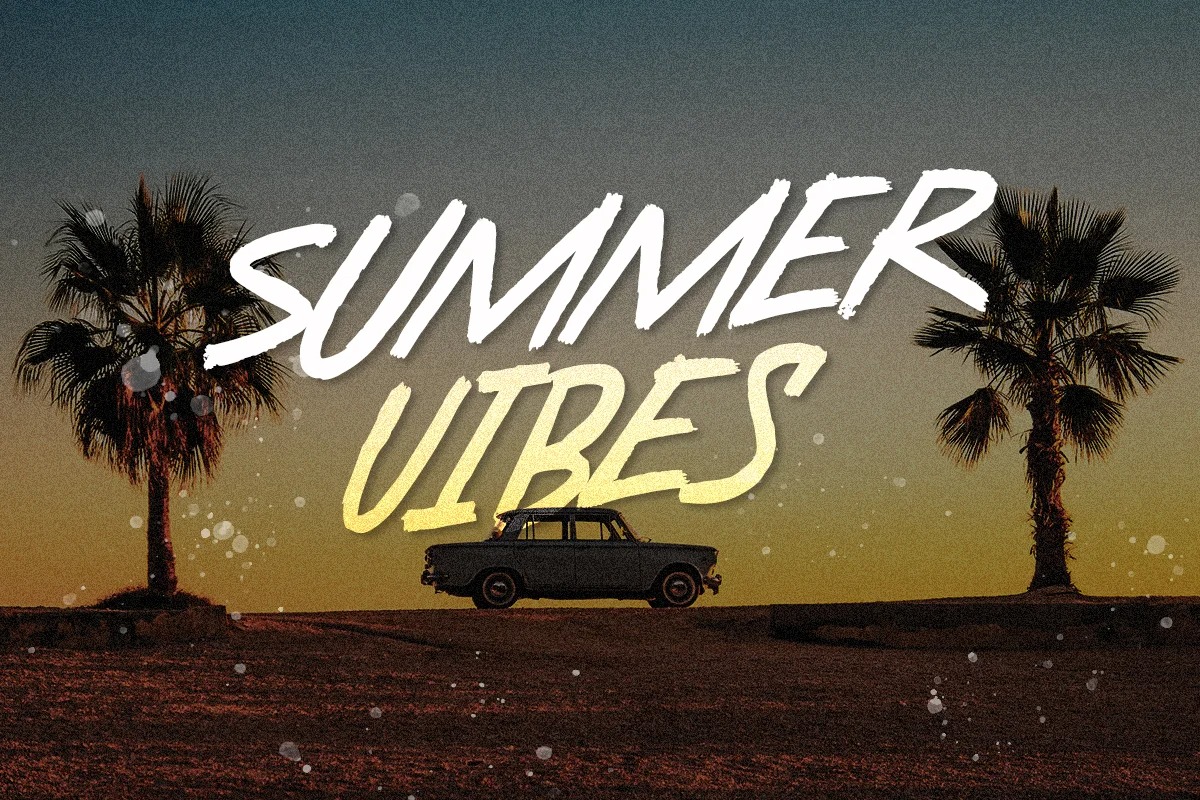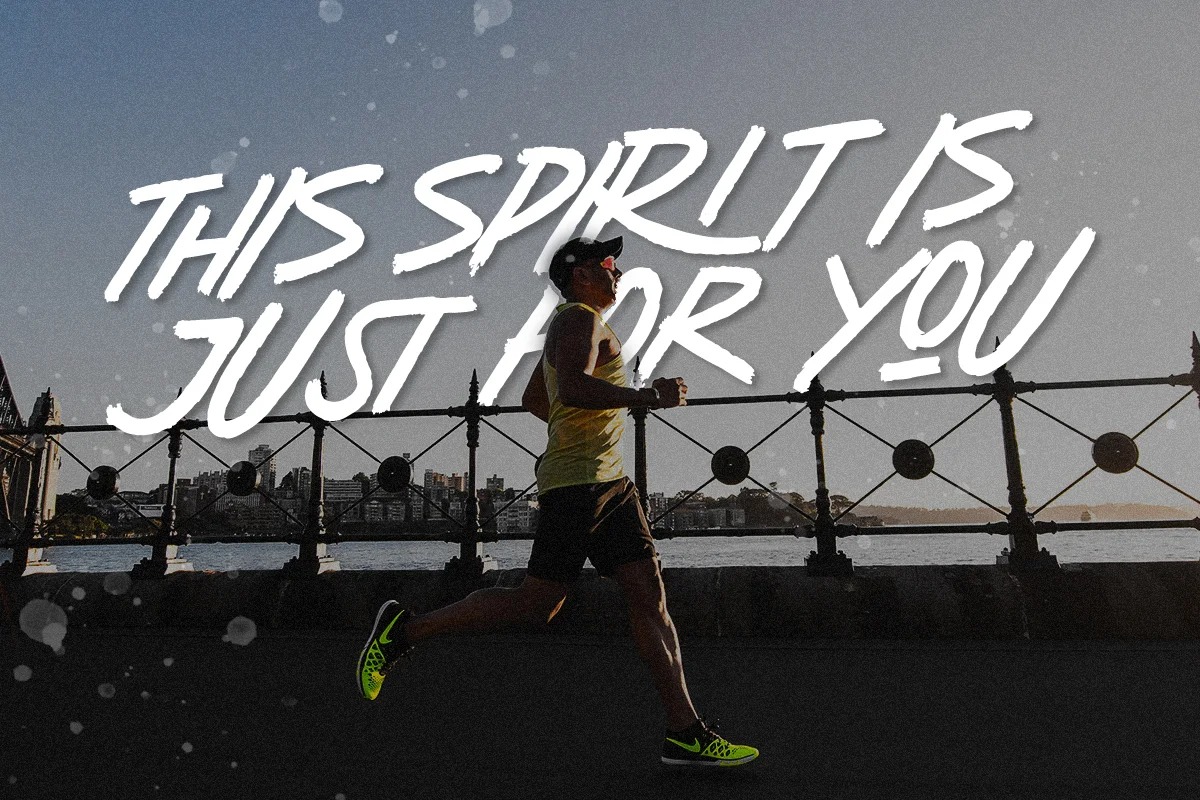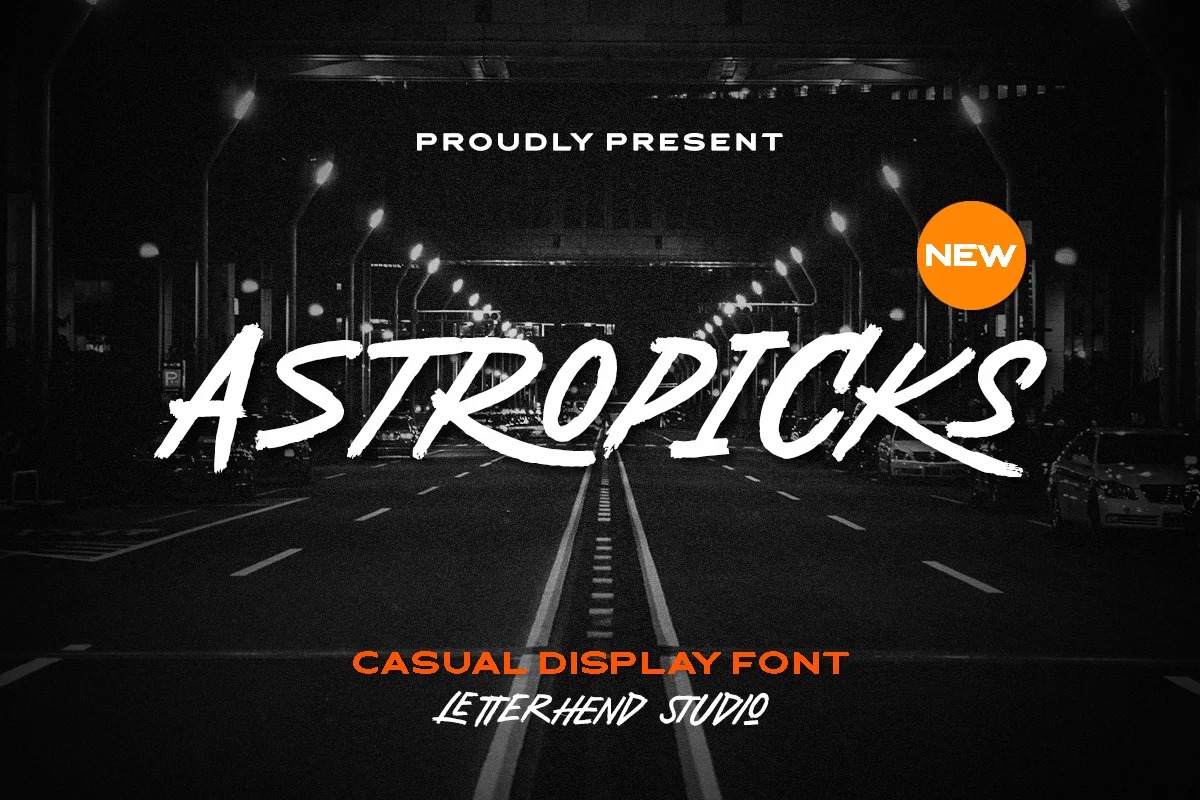
Astropicks Font
Astropicks Display Font
This is a elegant and beautiful brush font crafted & designed by Letterhend Studio. It has a elegant style and is perfect for creating original designs. This type of font perfectly made to be applied especially in logo, and the other various formal forms such as invitations, labels, logos, magazines, books, greeting / wedding cards, packaging, fashion, make up, stationery, novels, labels or any type of advertising purpose.